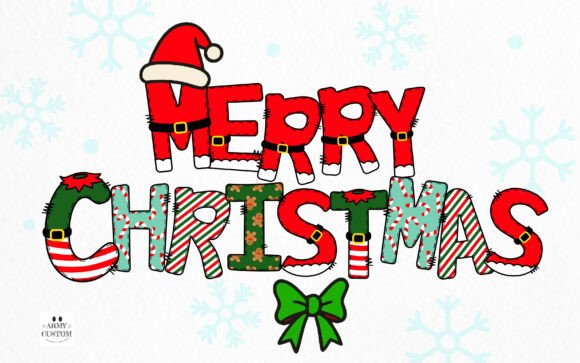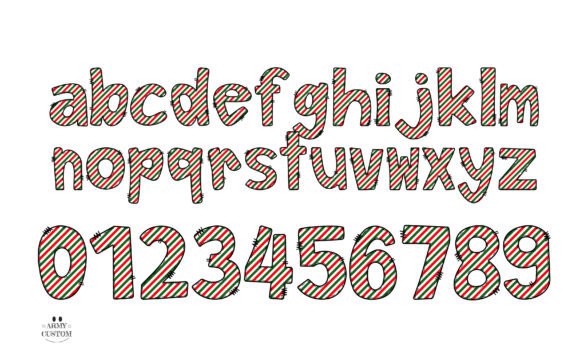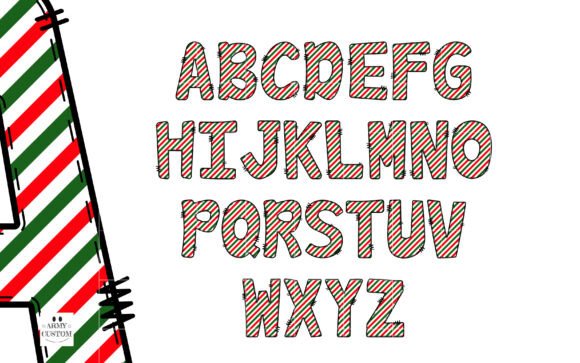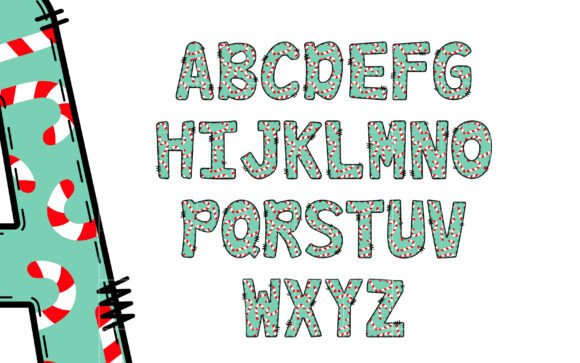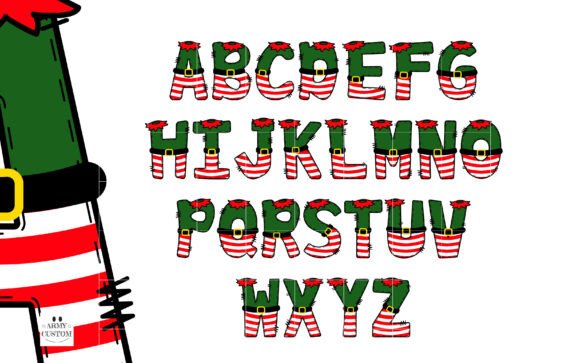
Christmas Bundle Font: Add Festive Cheer to Your Designs
It’s the most wonderful time of the year! Bring festive cheer to your designs with the Christmas Bundle OTF – a vibrant and playful color font that captures the magic of the holidays. This colorful alphabet includes uppercase, lowercase, and numbers (A–Z, a–z, 0–9), each character decorated with unique Christmas-themed patterns that pop with personality.
The Christmas Bundle Font is perfect for holiday cards, shirts, crafts, party signs, stickers, and more! Whether you’re a designer, crafter, or DIY enthusiast, this font is sure to add a touch of festive fun to your projects. Imagine creating eye-catching holiday cards, decorations, and gifts with this delightful font.
Unique Character Patterns
Each character in the Christmas Bundle Font features a unique and intricate design that’s sure to delight. Let’s take a closer look at some of the character patterns:
- Red Elf Suit (A, R, M): Features Santa’s iconic red suit complete with a black belt, gold buckle, and white fur trim.
- Striped Elf Hat (B, C): Red and white candy cane stripes with green accents and a stitched-on elf collar.
- Diagonal Peppermint Stripes (C, I): Candy cane red, green, and white diagonal stripes with a stitched black outline.
- Gingerbread Print (D, S): Green background covered with smiling gingerbread men wearing red bow ties.
- Candy Cane Sprinkle (E, T): Light blue with scattered red and white candy canes, giving a sugary, wintry vibe.
Outline and Details
Each letter is outlined, giving it a delightful, hand-crafted feel. The level of detail in this font is exceptional, making it perfect for designs that require a high level of intricacy. The font’s playful and whimsical nature makes it ideal for a wide range of creative projects.
What You Can Create with Christmas Bundle Font
The possibilities are endless with the Christmas Bundle Font! Here are a few ideas to get you started:
- Custom t-shirts and apparel
- Party signs and decorations
- Stickers and gift tags
- Crafts and DIY projects
Why Choose Christmas Bundle Font?
So, why choose the Christmas Bundle Font for your holiday designs? Here are just a few reasons:
- Unique and festive designs: Each character is carefully crafted with unique and festive designs that will add a touch of holiday cheer to your projects.
- Playful and whimsical: The font’s playful and whimsical nature makes it perfect for a wide range of creative projects.
- High level of detail: The font features a high level of detail, making it perfect for designs that require intricacy.
- Easily customizable: The font is easily customizable, allowing you to adjust the colors and designs to fit your project’s needs.
Get Ready to Add Some Festive Cheer to Your Designs!
Don’t miss out on the opportunity to add some festive cheer to your designs with the Christmas Bundle Font. With its unique and intricate character patterns, playful and whimsical nature, and high level of detail, this font is sure to become a favorite in your design arsenal. Get ready to create some amazing holiday designs that will delight and inspire!